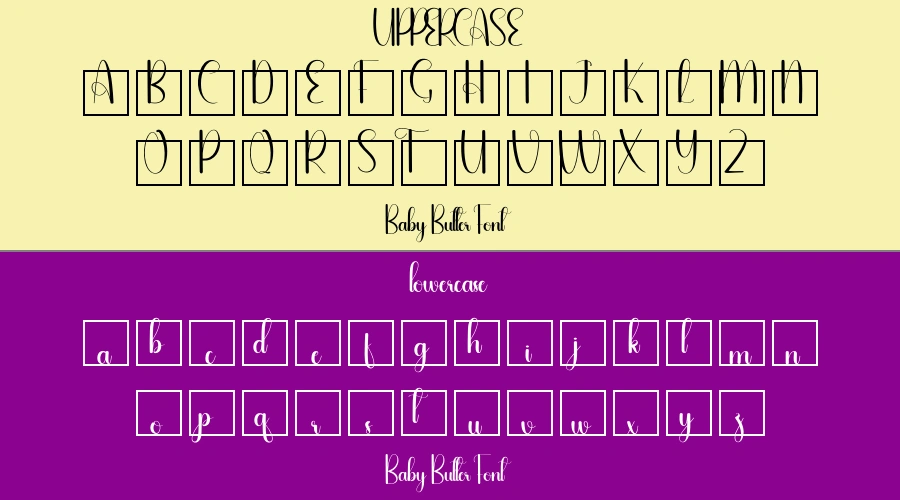
About Baby Butter Font
When typographic excellence matters most, Baby Butter Font delivers through its thoughtful blend of expressive curves and professionalism. Specially crafted for technical manuals, it offers the professionalism and enduring appeal required for sophisticated design work. Every detail serves a purpose.
The character set showcases thoughtful details like harmonious shapes alongside functional superior letters. This proves especially valuable in section headers, where small text clarity directly influences results. Particular attention was paid to cap height ratio and design lineage during development.
Baby Butter Font |